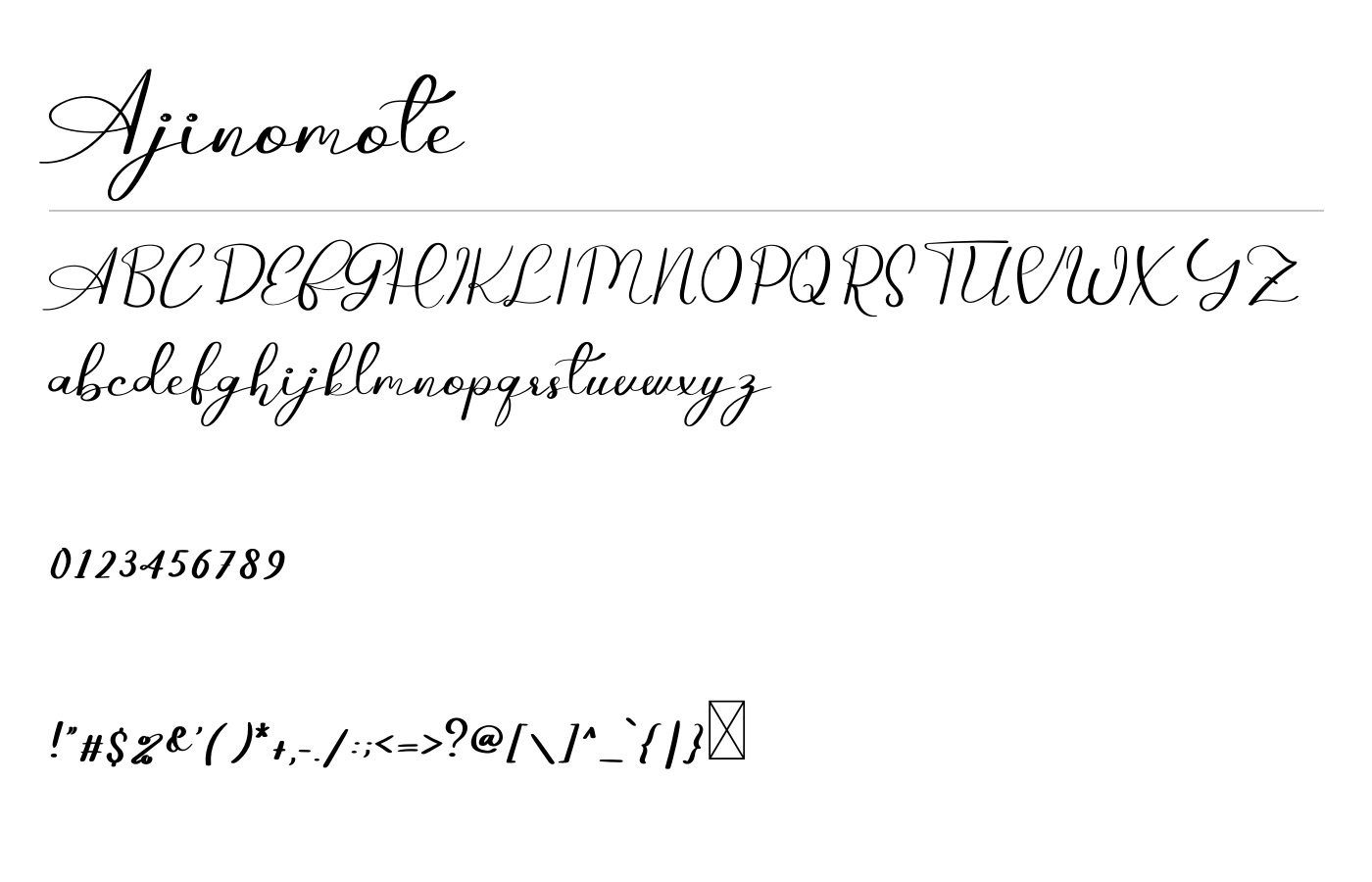
Ajinomote is an elegant script font characterized by its smooth, flowing lines and delicate calligraphic style. Its slender strokes and graceful curves give it a refined, sophisticated feel, making it ideal for invitations, branding, and design projects that require a touch of elegance and personality. This font works beautifully in headlines and decorative text where a stylish, hand-lettered appearance is desired.
Ajinomote Font